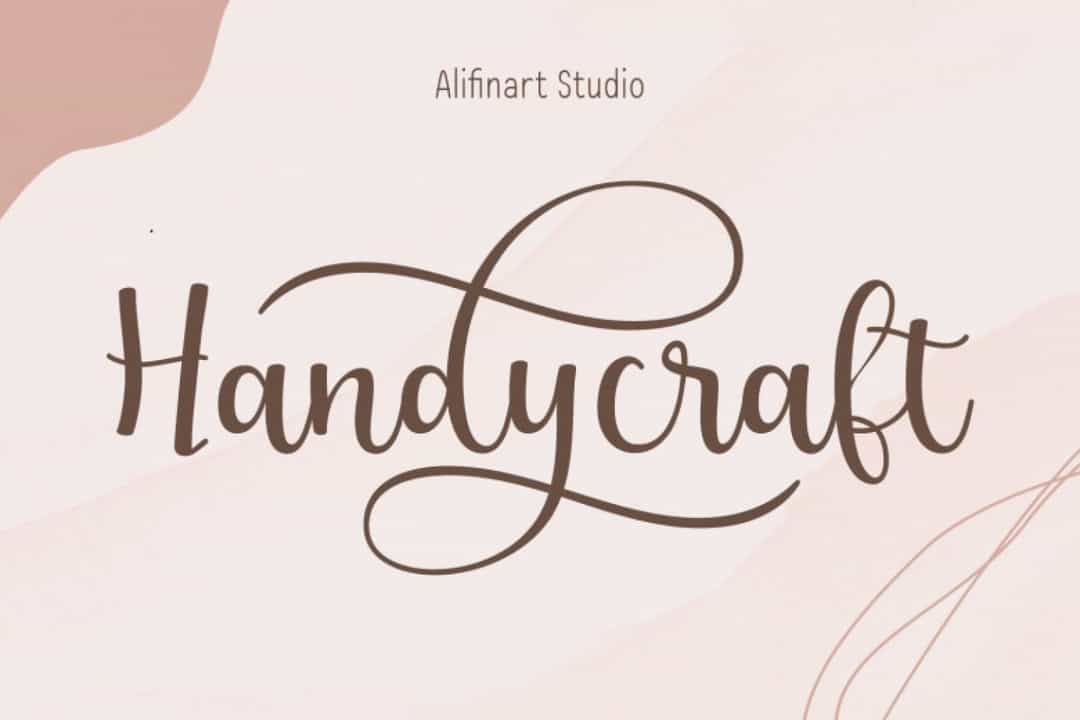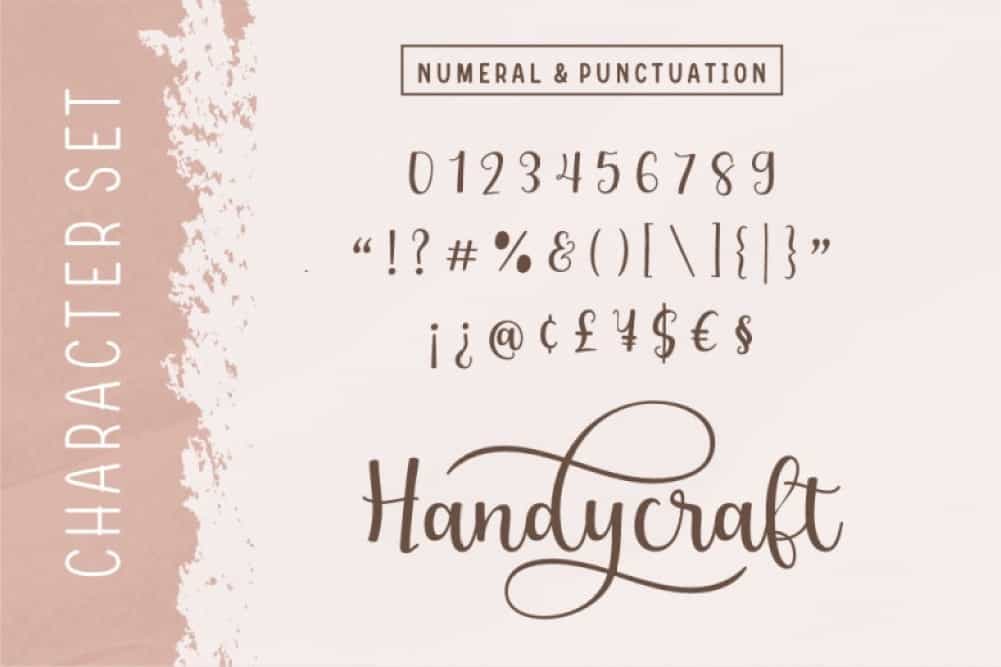
Discover Handycraft Font, part of the Calligraphy Handwritten collection—a versatile and unique font perfect for adding a personal touch to your projects. Download it for free and enjoy crafting designs with style, from invitations to social media posts. This font is available exclusively for personal use, giving you the freedom to create without limits. Unlock your creativity with Handycraft Font today!
Handycraft Fonts simplifies elegance into an impressive handwritten script font. Keeping its classic calligraphic style while remaining current and stylish. Its versatility will surely draw the eye towards titles, letterheads and stationery projects of all kinds.